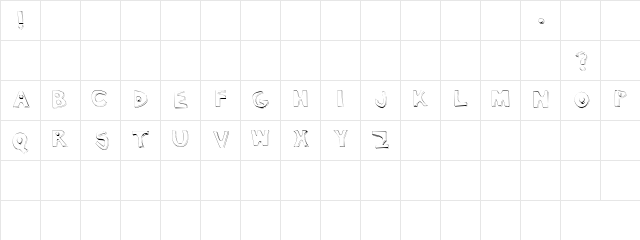
Texas Jigsaw Massacre Regular Font Preview
Texas Jigsaw Massacre Regular
Design Context for Texas Jigsaw Massacre Typeface
Texas Jigsaw Massacre is a composed and adaptable typeface that performs quietly and consistently across a wide range of design contexts.